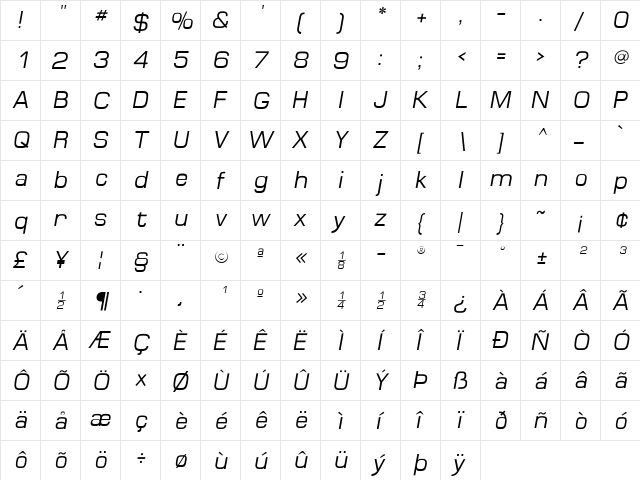
MicroFLF Regular
Design Context for MicroFLF Typeface
MicroFLF offers clean, dependable letterforms without strong stylistic allegiance, making it a practical choice for designers who need flexibility.
Pro Tip: Pair MicroFLF with a font of contrasting weight or personality to build a more expressive typographic hierarchy.